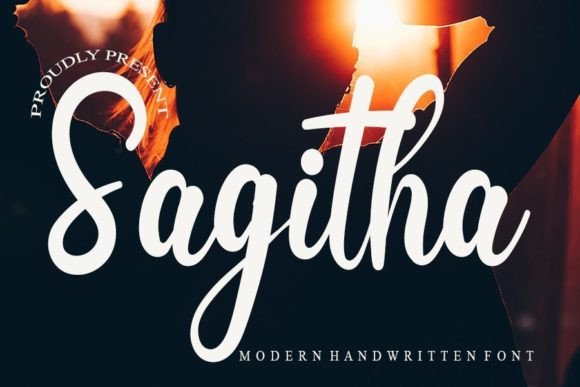
Introducing Sagitha, the enchanting script font that will ignite your designs with a touch of elegance and warmth. This meticulously crafted masterpiece seamlessly fuses the timeless charm of calligraphy with a modern, refreshing twist, making it the perfect choice for businesses seeking to make a lasting impression.
Sagitha's flowing strokes and graceful curves exude a friendly, approachable vibe, inviting your audience into a world of creativity and imagination. Its unique character, inspired by the beauty of handwriting, adds a personal touch to your brand, fostering a genuine connection with your customers.
Whether you're designing captivating logos, alluring marketing materials, or eye-catching social media graphics, Sagitha empowers you to elevate your brand's presence with a touch of sophistication and style. Its versatility knows no bounds, lending itself effortlessly to a wide range of design projects, from elegant invitations to whimsical posters.
With Sagitha, you'll discover a font that speaks volumes about your brand's personality and values. Its enchanting allure will inspire creativity, spark joy, and leave an unforgettable mark on your audience. Embrace the power of Sagitha today and let your designs shine with a touch of magic!